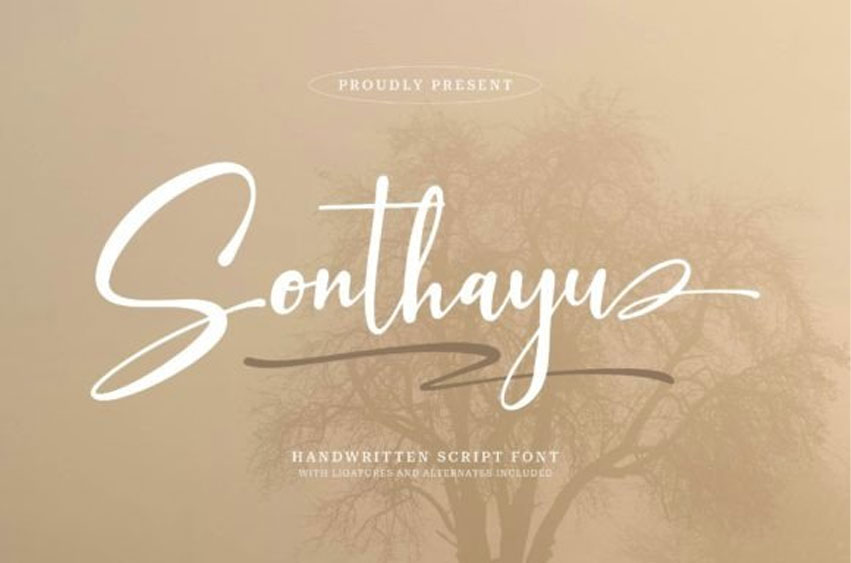
Sonthayu Font is a beautiful, artistic style of handwriting. It looks like calligraphy, with elegant and flowing letters.
Each stroke and curve is carefully crafted to make the writing look fancy and decorative. It’s often used for special occasions like invitations, certificates, or any place where you want the writing to stand out and look special.